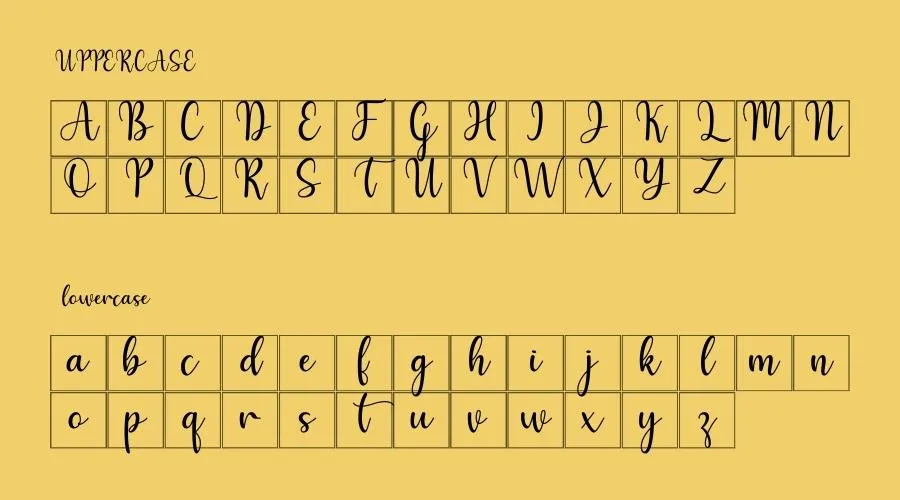
Hello Font
About Hello Font
We are introducing a free font named Hello Font, it belongs to the stylish calligraphy texture family. It was invented by a famous typographic developer named Graphix Line Studio with smooth swashes and fun script texture look impression.
You can easily combine it with multiple other fonts due to its stylish and unique features. It can easily be utilized with jenna sue font and make modern projects.
This attractive typeface was released through Zetafonts with 8 modern styles and unique futures. It contains various types of weights like bold, italic, and regular and includes unique 294 characters of the alphabet set such as small letters, capital letters, digits, symbols, and punctuations.